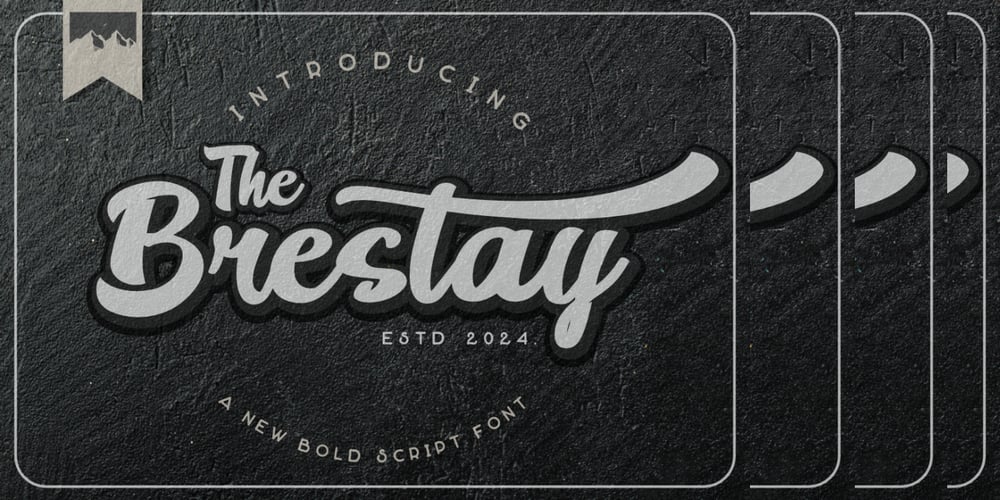
Brestay
Brestay font
Brestay Font Family was designed by Bayu Aji Fais Mursid and published by Bayuktx. Brestay contains 1 styles and family package options. Hello,Thank you for visiting my products, we will give you the best choice.Brestay Bold Script Font, This font is made with a high premium quality level which you can use as flyers, quotes, posters, banners, packaging, merchandise, logotypes and much more.FEATURES :* Uppercase* Number* Punctuation* Multilingual* PUA Encode* OpentypeFILES INCLUDED :* Brestay 1* Brestay 2Thank you